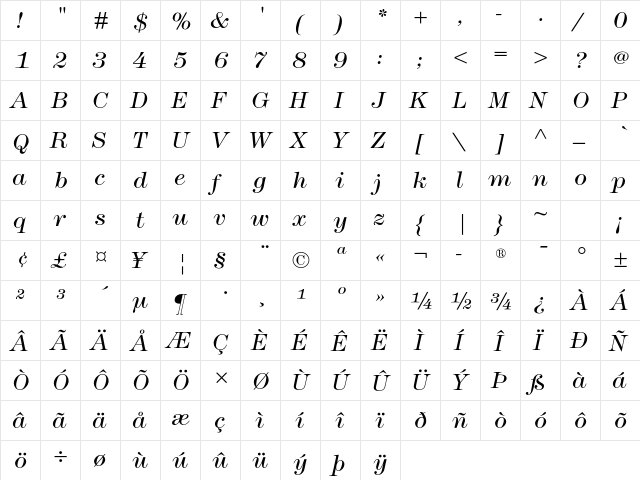
Modern TwoSxtn ITC Std LightIta
| Foundry | International Typeface Corporation |
| Designer | Edward Benguiat |
Design Context for Modern TwoSxtn ITC Std Typeface
Modern TwoSxtn ITC Std offers clean, dependable letterforms without strong stylistic allegiance, making it a practical choice for designers who need flexibility. The delicate stroke weight brings airiness and refinement to layouts.